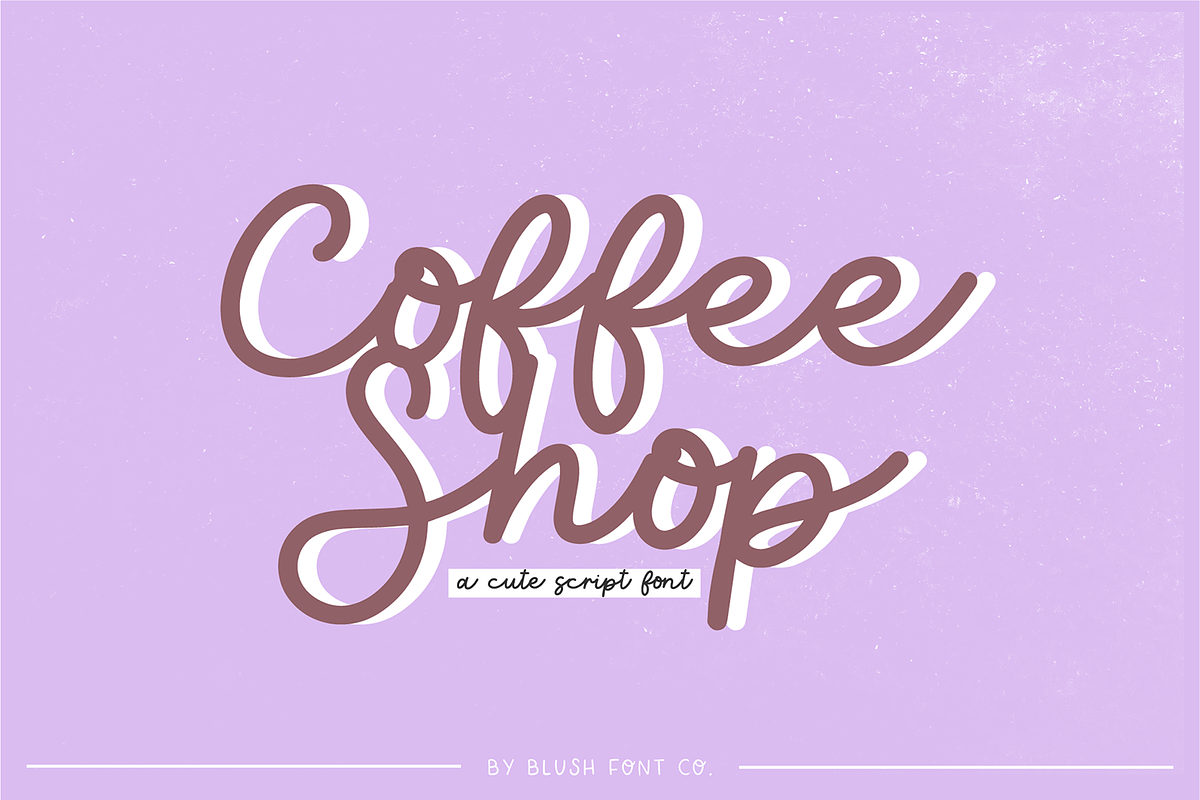
COFFEE SHOP Casual Script Font Free Download is a relaxed and friendly handwritten typeface, perfect for café menus, lifestyle branding, product packaging, and cozy social media posts. With its smooth strokes and casual charm, this font brings a warm, inviting vibe to any design. Please note that you must purchase this font for commercial use, but it is available as a free download for testing purposes. Add personality and comfort to your creative projects with COFFEE SHOP Casual Script Font Free Download, and let your typography feel as welcoming as your favorite coffee spot.